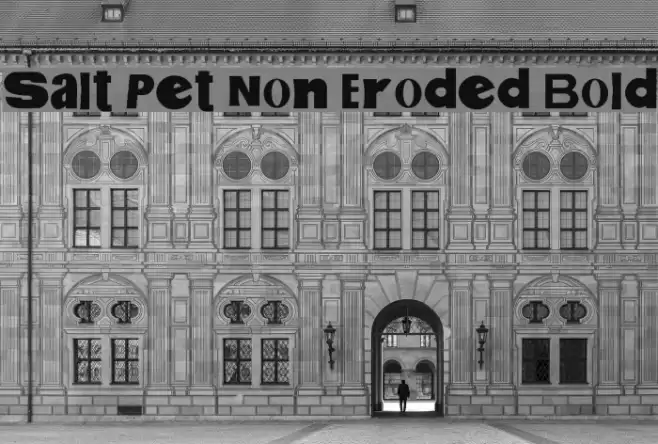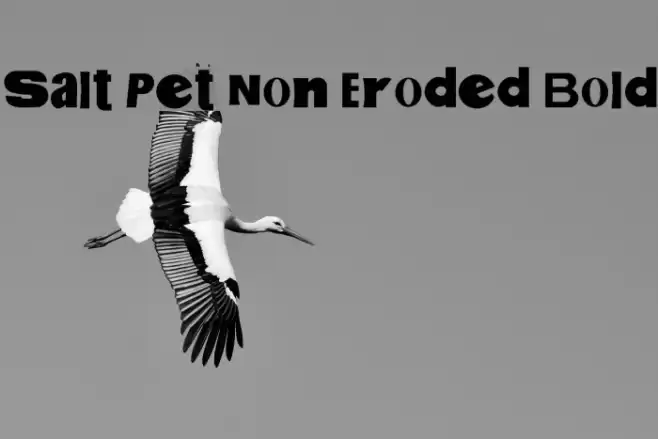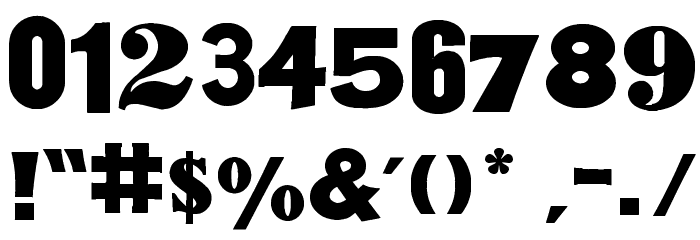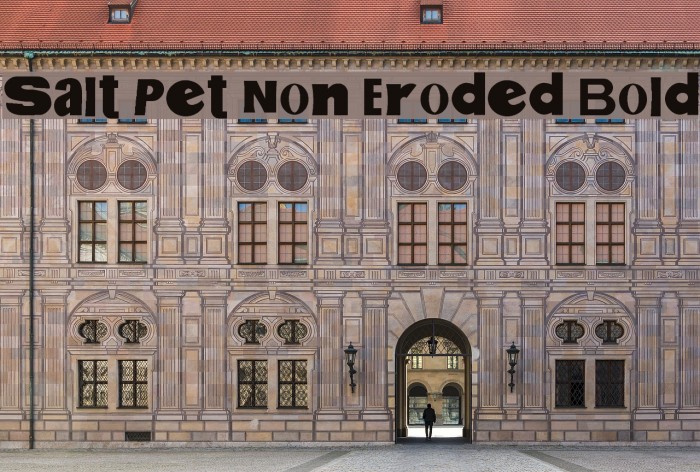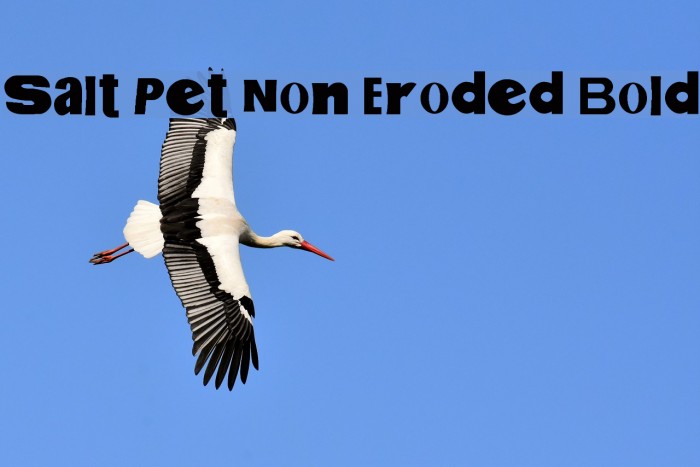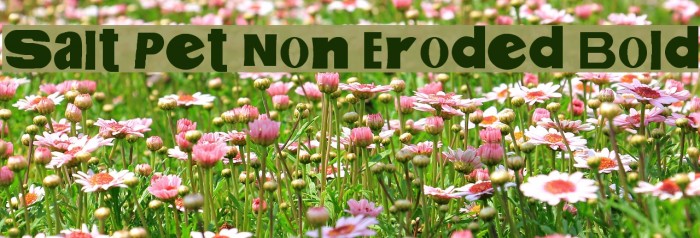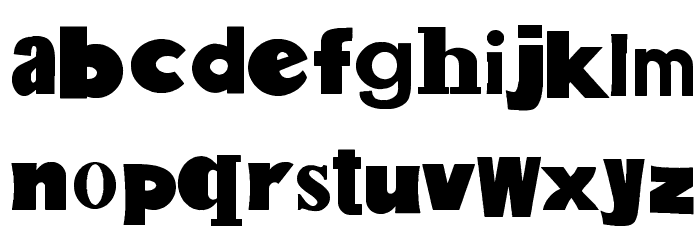
Salt Pet Non Eroded Bold Font
Salt Pet Non Eroded Bold Description
This bold and striking font features a strong presence with its thick, heavy strokes and unique character shapes. The uppercase letters are particularly robust, with some characters like 'E' and 'F' having distinctive horizontal strokes that add a creative flair. The lowercase letters maintain the boldness, with rounded forms that contrast with the angularity of the uppercase. Numbers are equally bold, ensuring visibility and impact. Special characters are designed to match the overall weight and style, making them suitable for various applications. The font's boldness and unique design make it ideal for attention-grabbing headlines and logos.
A bold, heavy font with unique character shapes and strong visual impact from Distorted Eroded fonts.
- Proposed Projects: Ideal for branding, poster design, and any project requiring a bold statement.